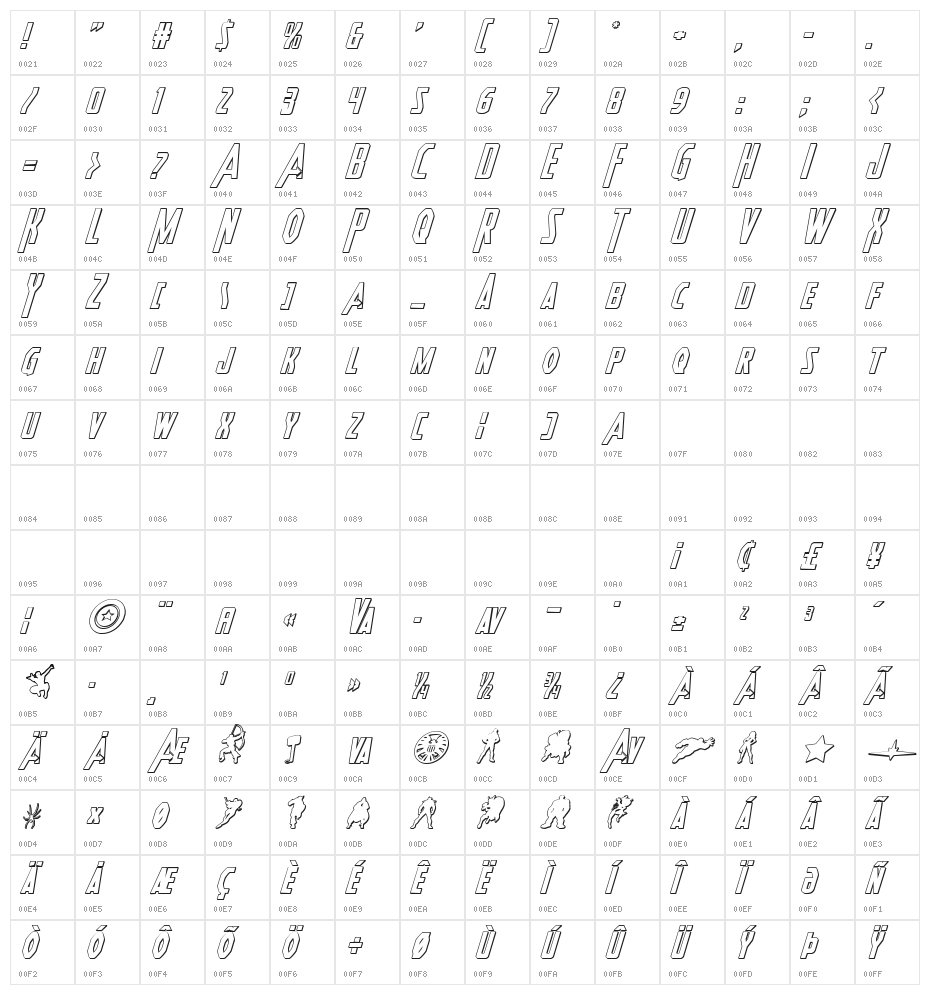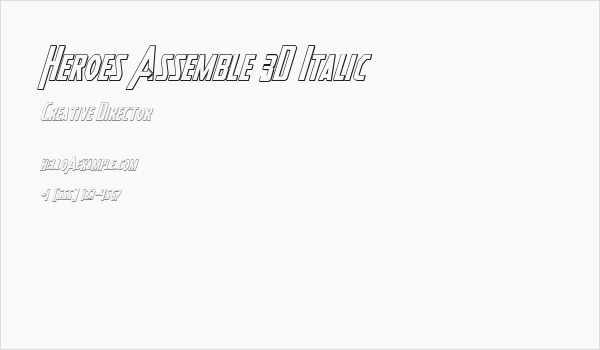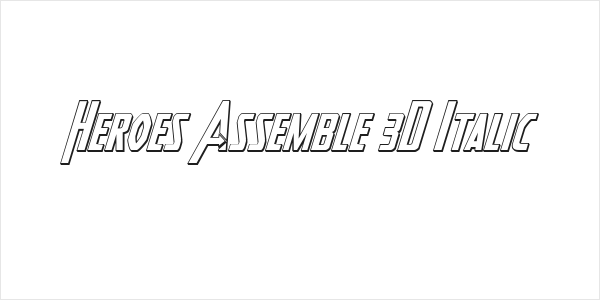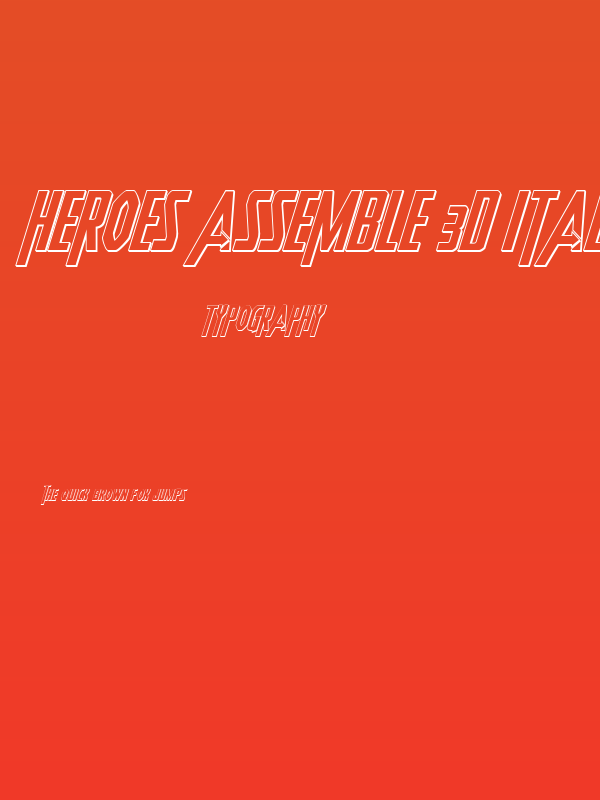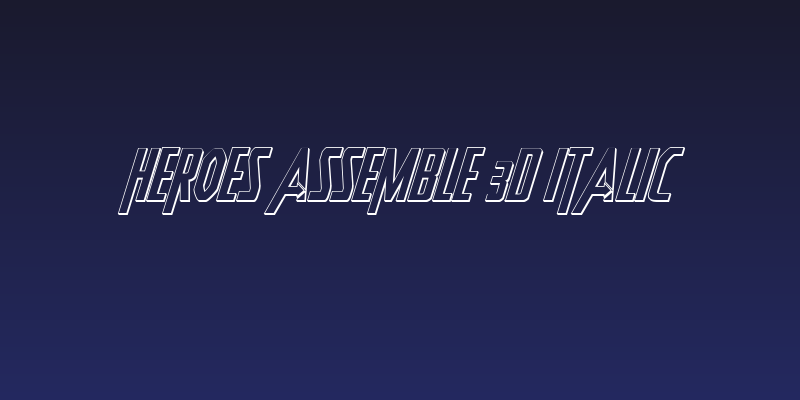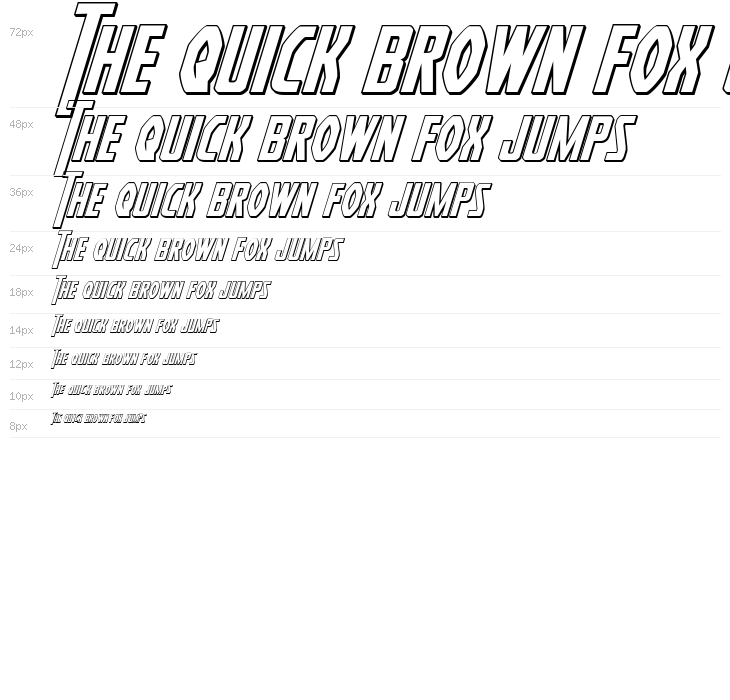
Heroes Assemble 3D Italic Font
Heroes Assemble 3D Italic Description
This font features a bold, three-dimensional style with a strong italic slant, giving it a dynamic and energetic appearance. The characters are outlined, creating a sense of depth and movement. The uppercase letters are prominent and angular, while the numbers and special characters maintain the same bold and italicized characteristics. This font is designed to stand out, making it ideal for attention-grabbing headlines or titles. The spacing between characters is relatively tight, enhancing the compact and impactful look.
| Proposed Projects | Ideal for comic book titles, superhero-themed designs, posters, and video game graphics. |